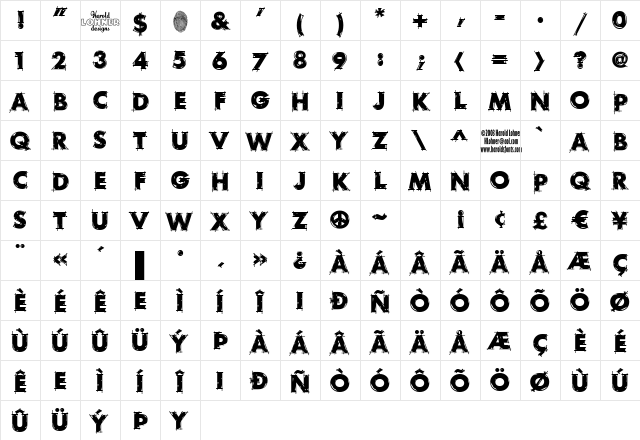
Rough Draft Regular
Design Context for Rough Draft
Rough Draft embraces imperfection - its rough, textured character adds raw authenticity to designs that want to feel lived-in and unconventional.
Pro Tip: Use Rough Draft at larger sizes where the texture and irregularity of each letterform can be clearly seen - it loses its character at small sizes.